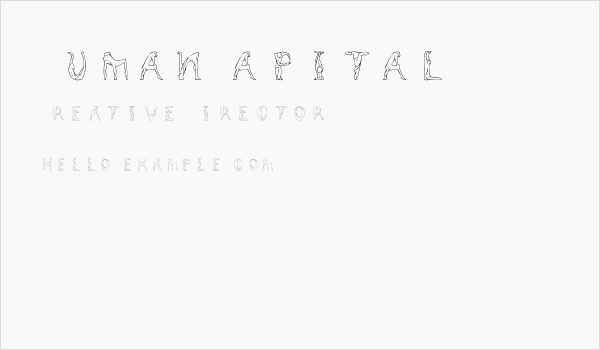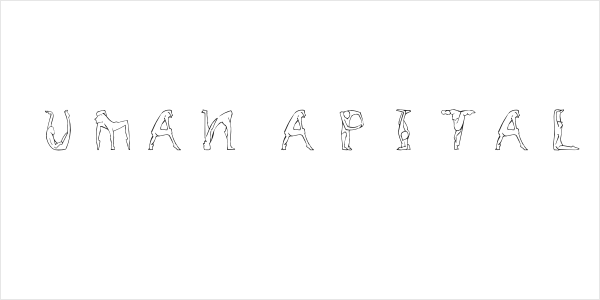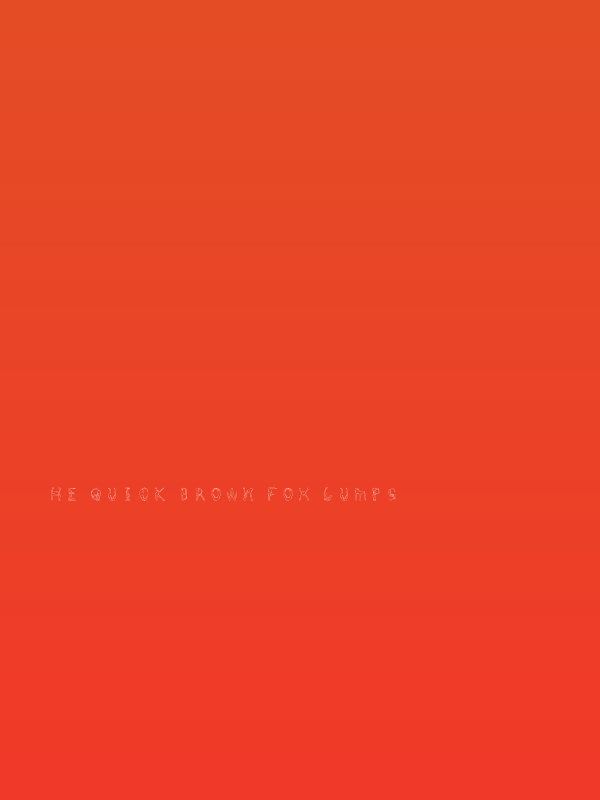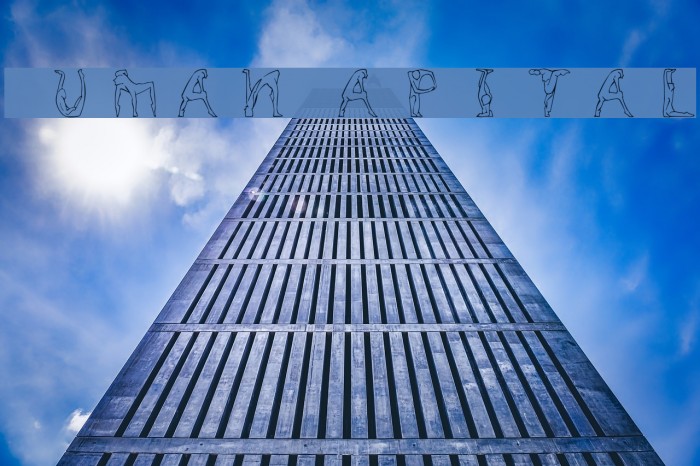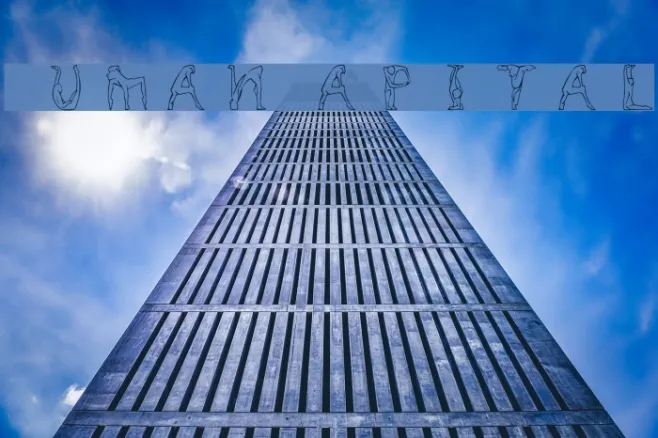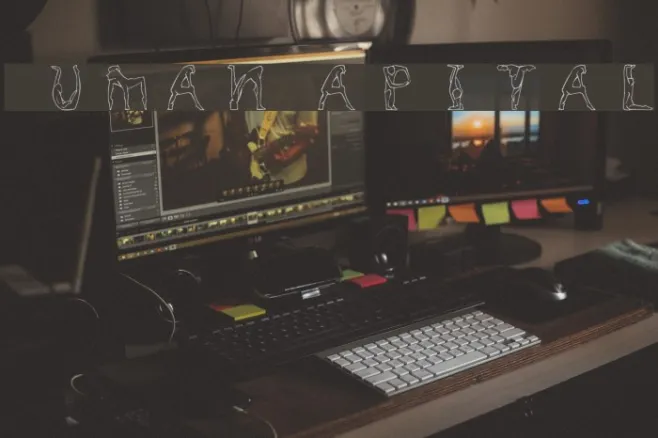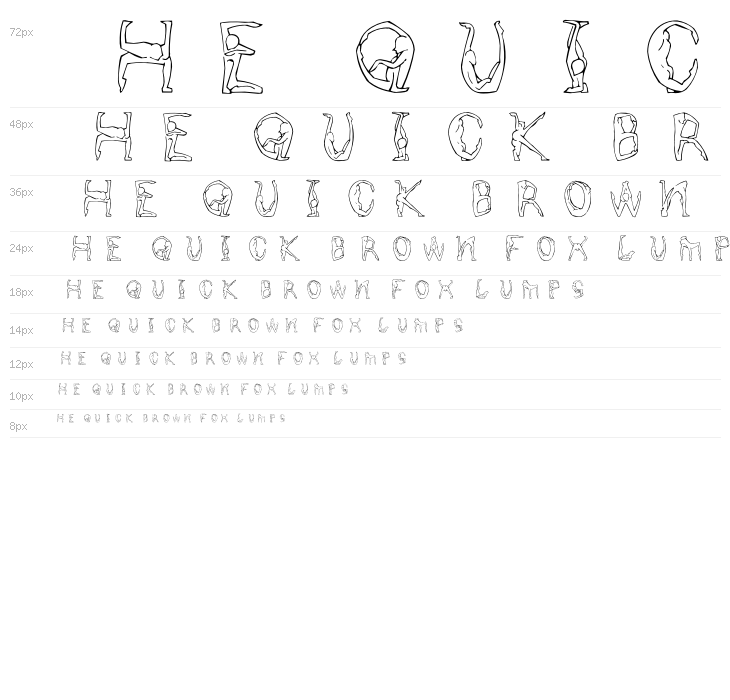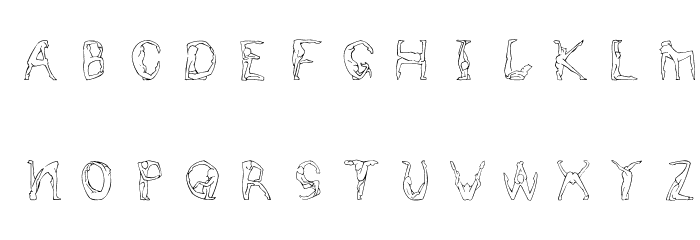
HumanCapital Font
HumanCapital Description
This unique font is crafted using human figures to form each letter, creating a playful and artistic representation. The characters are composed of outlines of people in various poses, giving the font a dynamic and lively appearance. Each letter is distinct, with intricate details that capture the essence of human movement and form. The font is highly decorative, making it suitable for creative projects that require a touch of whimsy and originality. Its design is both engaging and visually intriguing, inviting viewers to explore the shapes and forms that make up each character.
| Use Case | Headlines, Logos, Artistic projects |
| Proposed Projects | Ideal for art projects, creative posters, children's books, and any design requiring a whimsical and engaging font. |